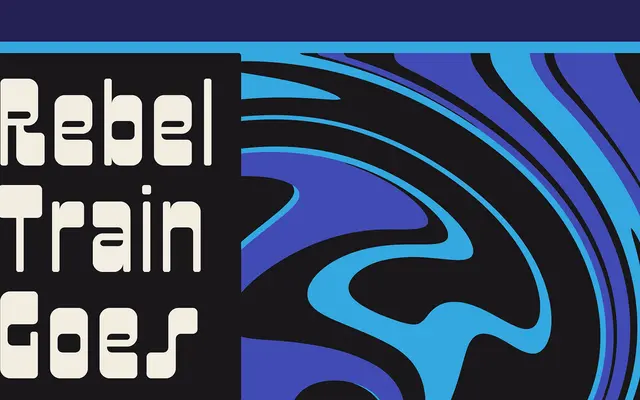
Rebel Train Goes
A retro display face drawing on mid-20th century vinyl record culture, blending psychedelic lettering with mid-century futuristic styling.
Designed to evoke the visual language of 1960s and 70s vinyl sleeve graphics, the typeface channels funky, hippie-era letterforms with a touch of space-age optimism. It suits posters, album artwork, event branding and any project that leans into vintage counterculture without abandoning legibility. The single style keeps the offering focused on its core decorative purpose.
A decorative display face drawing on mid-20th century psychedelic and vinyl record aesthetics, placing it firmly in the display category with a retro subcategory.